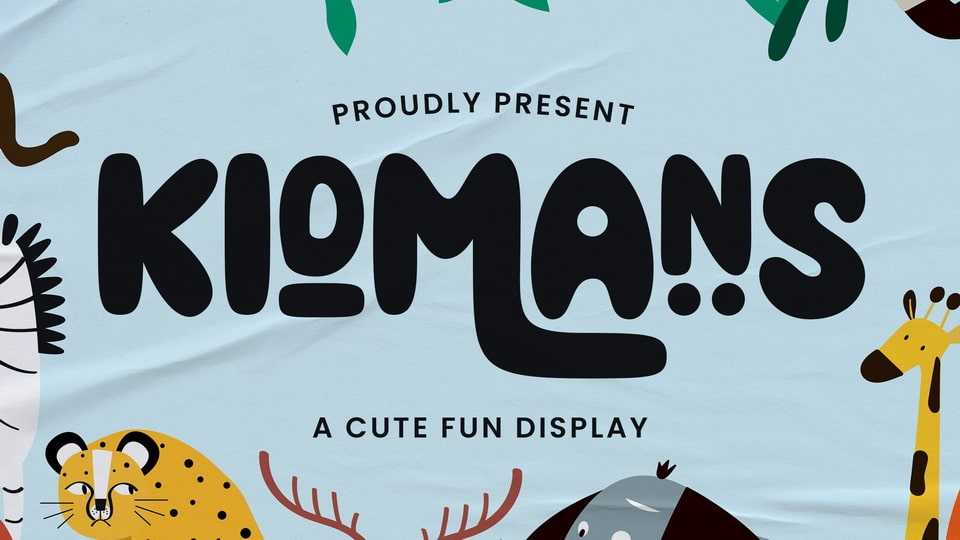
Download Kidmans font, a cute, friendly, and fun display typeface. Whether you’re using it for crafts, digital design, presentations, or making greeting cards, Kidmans font has the potential to become your favorite.